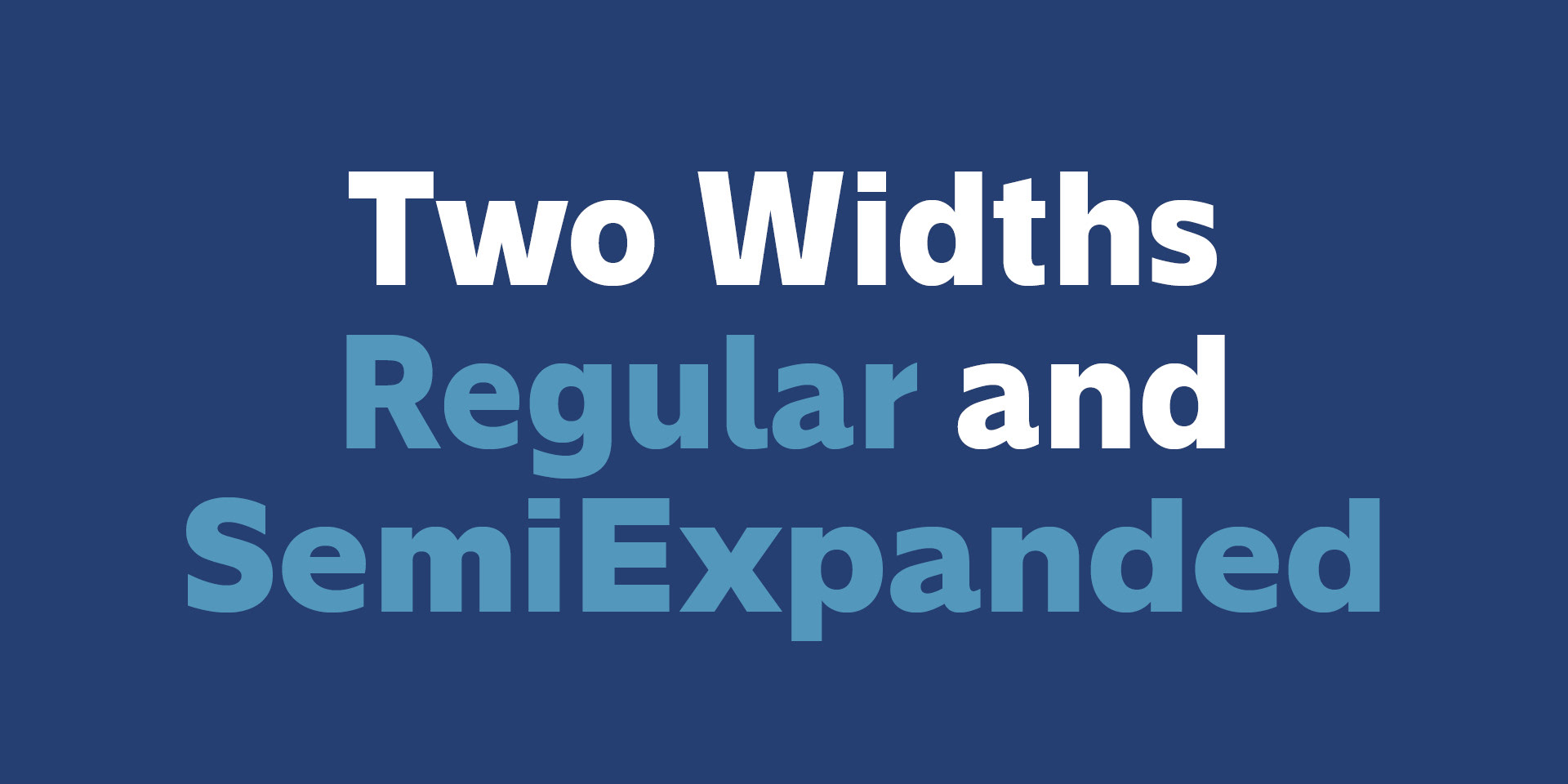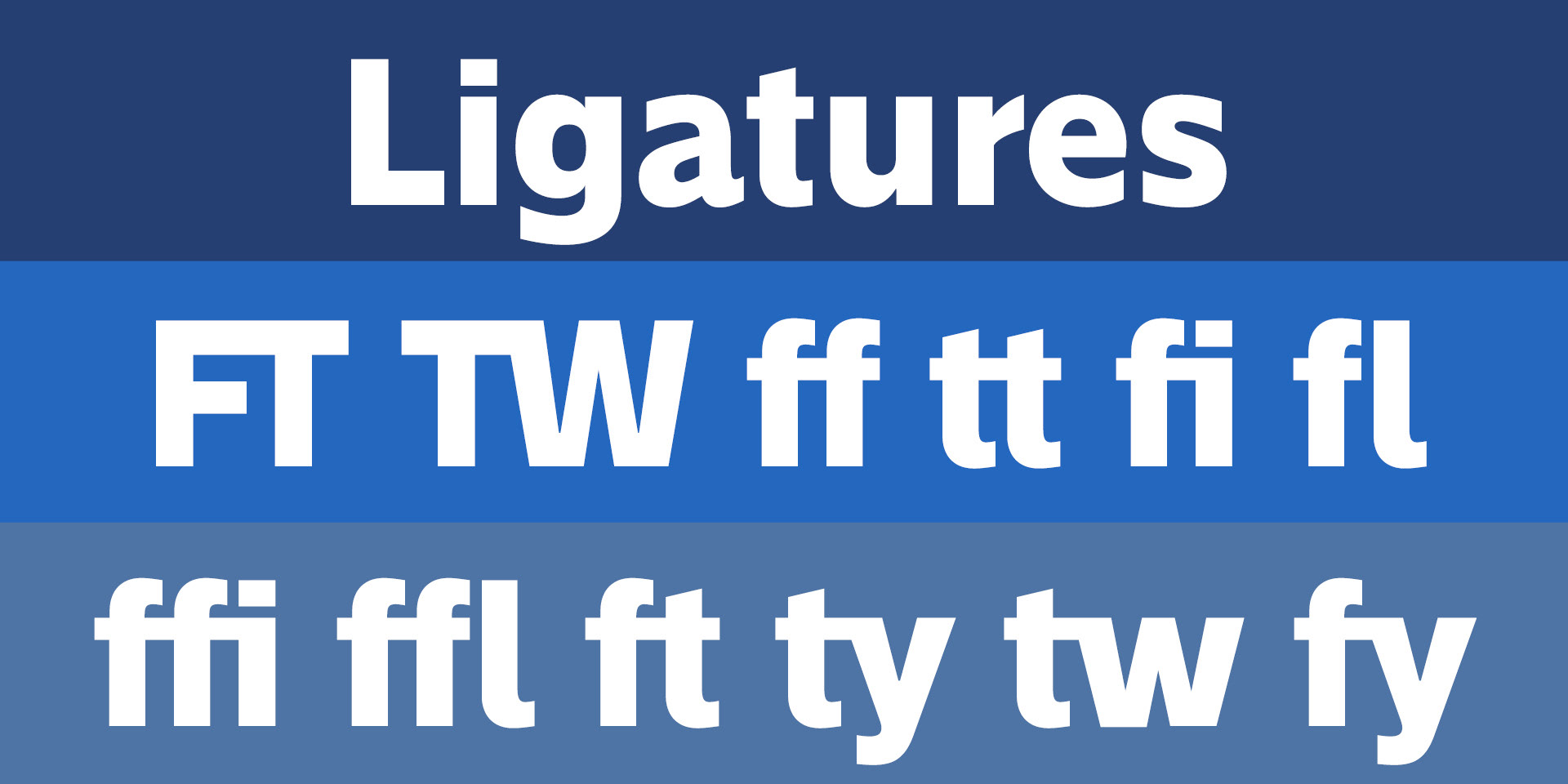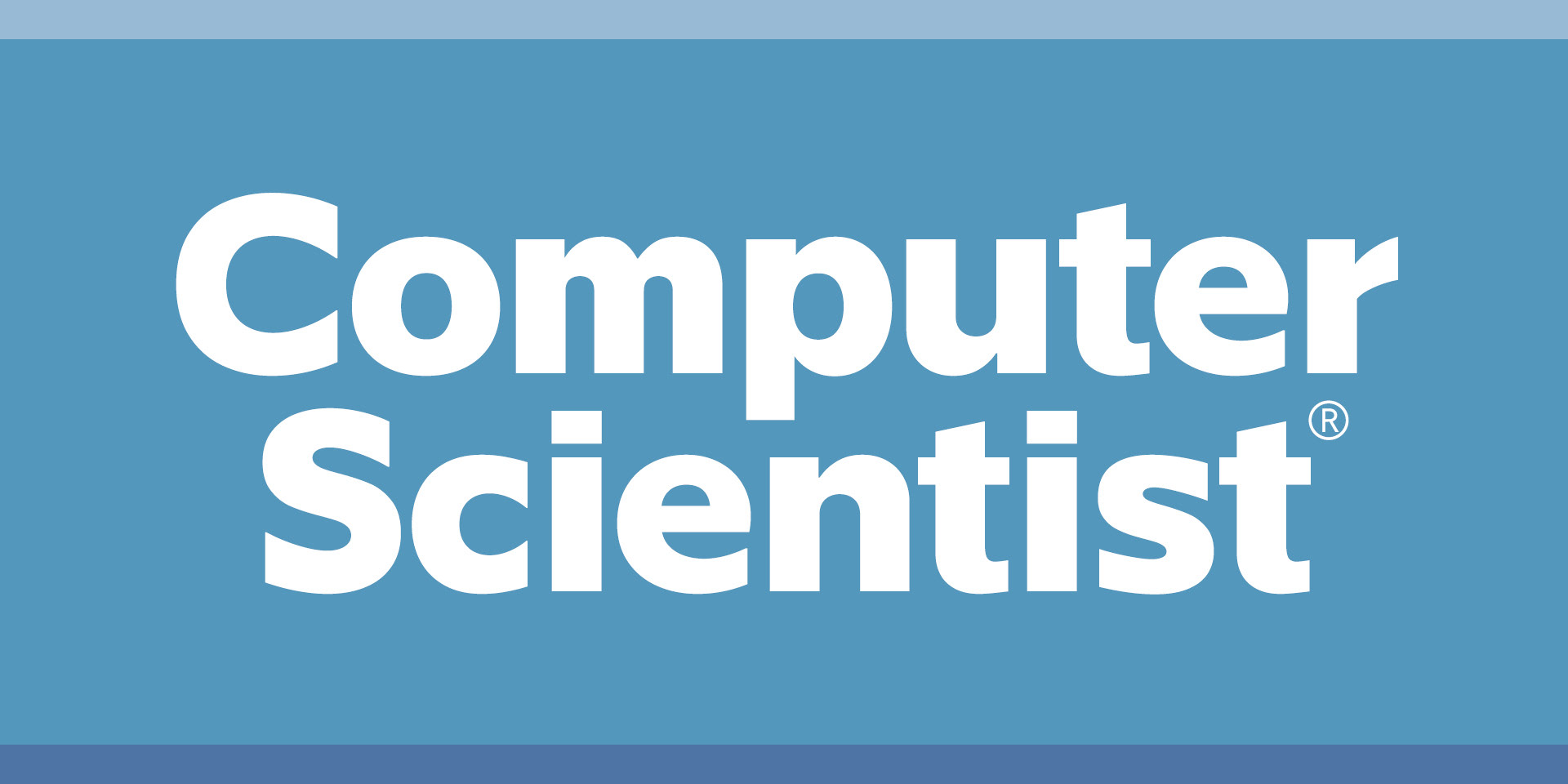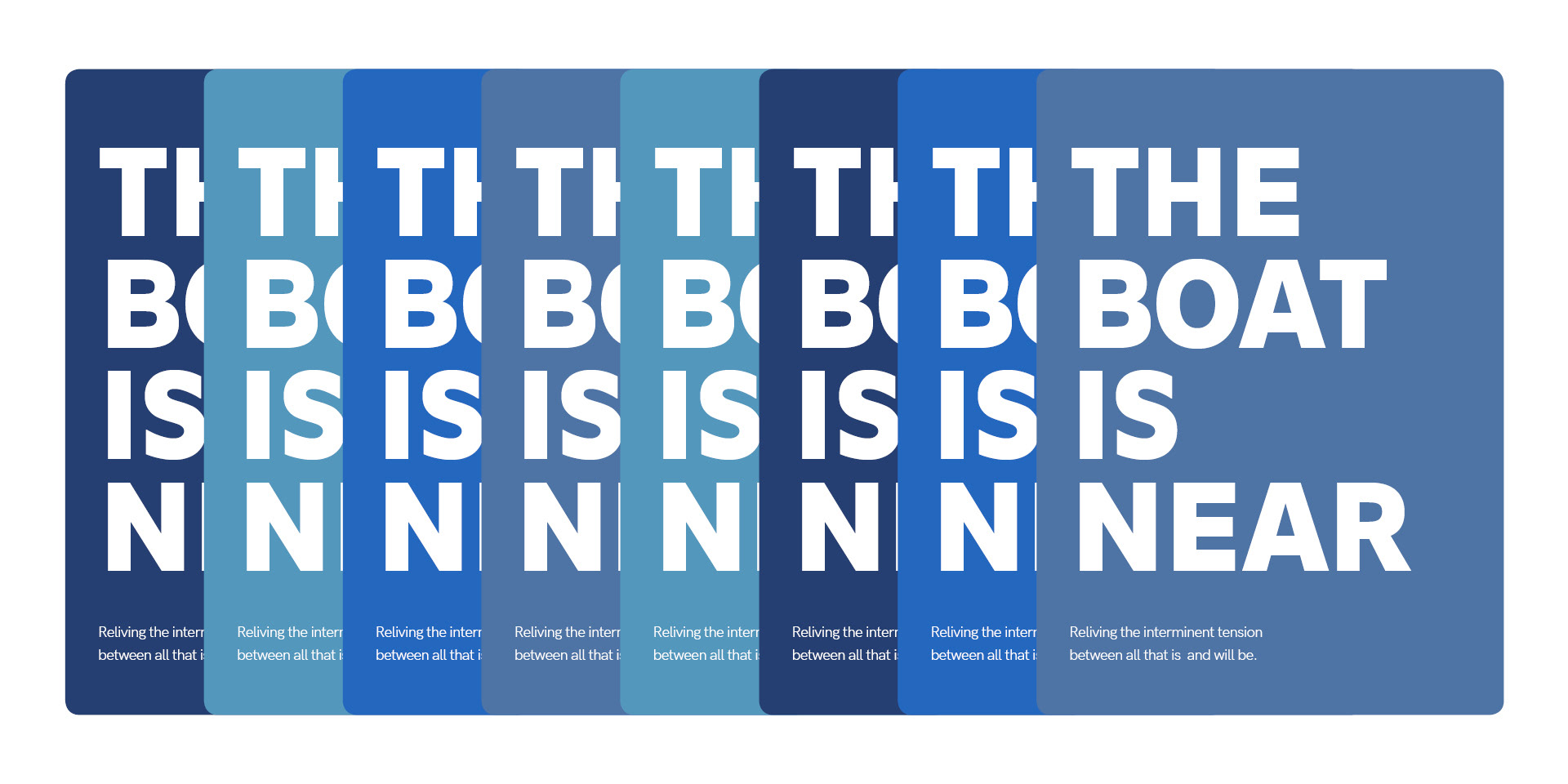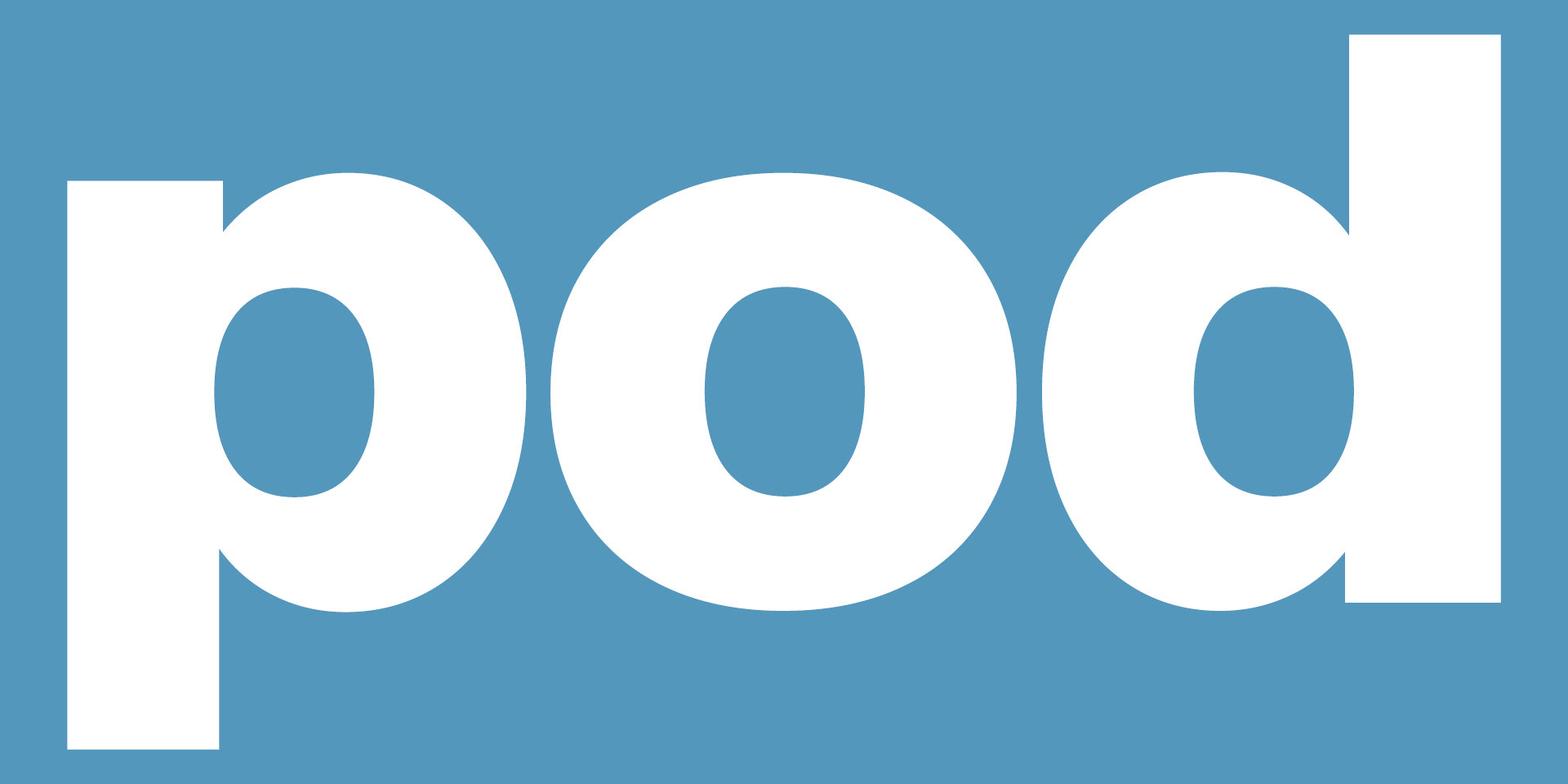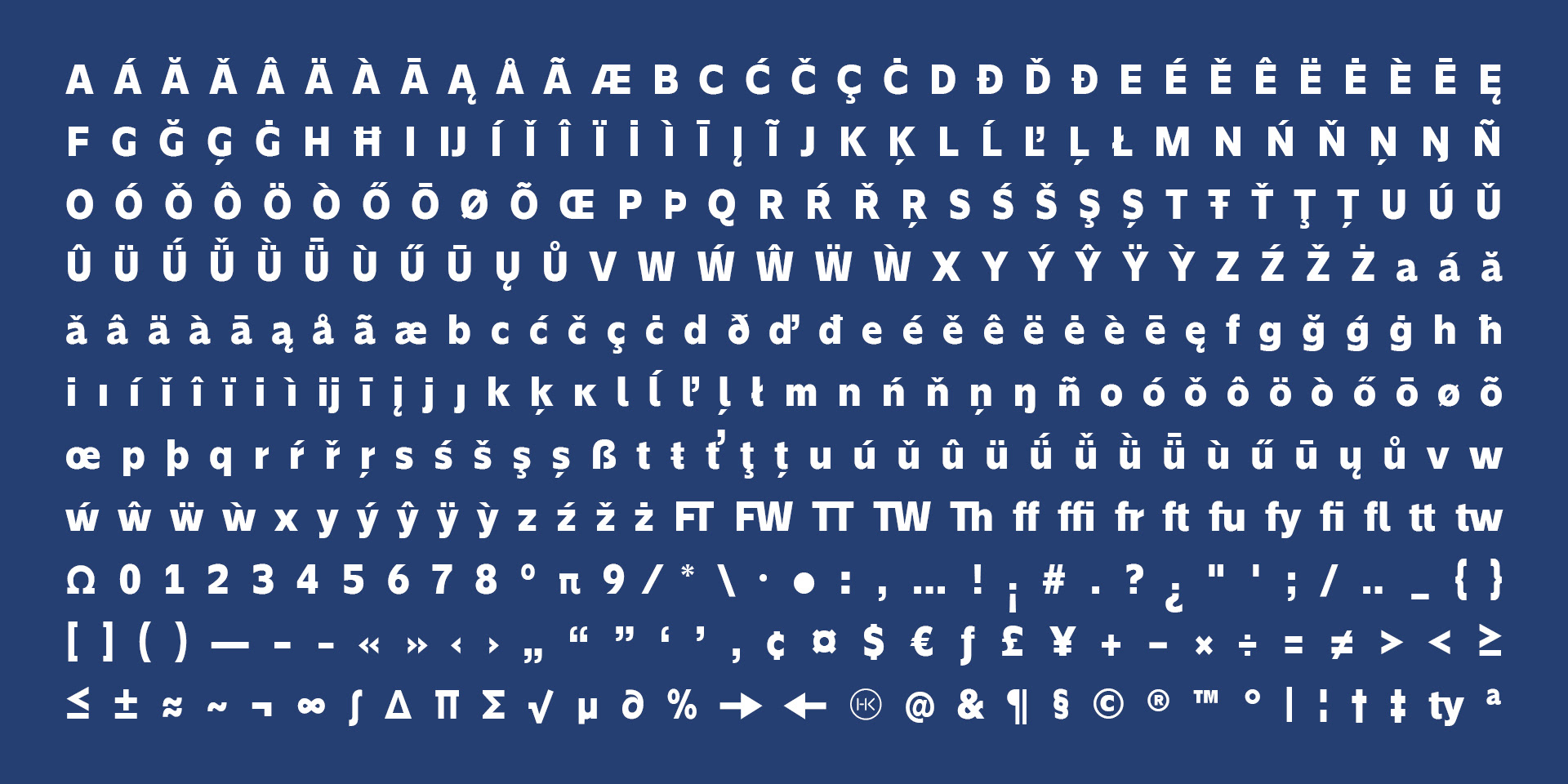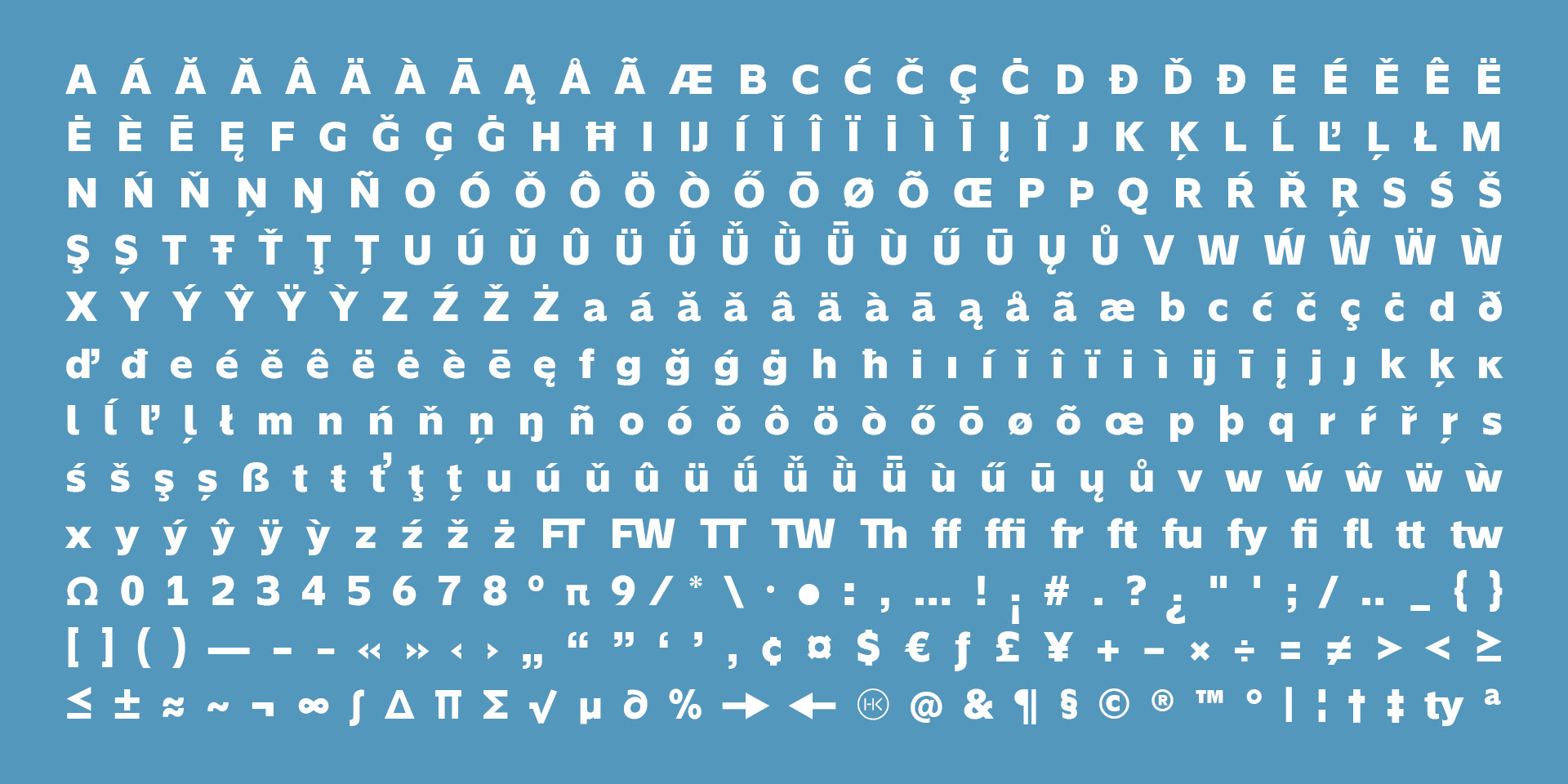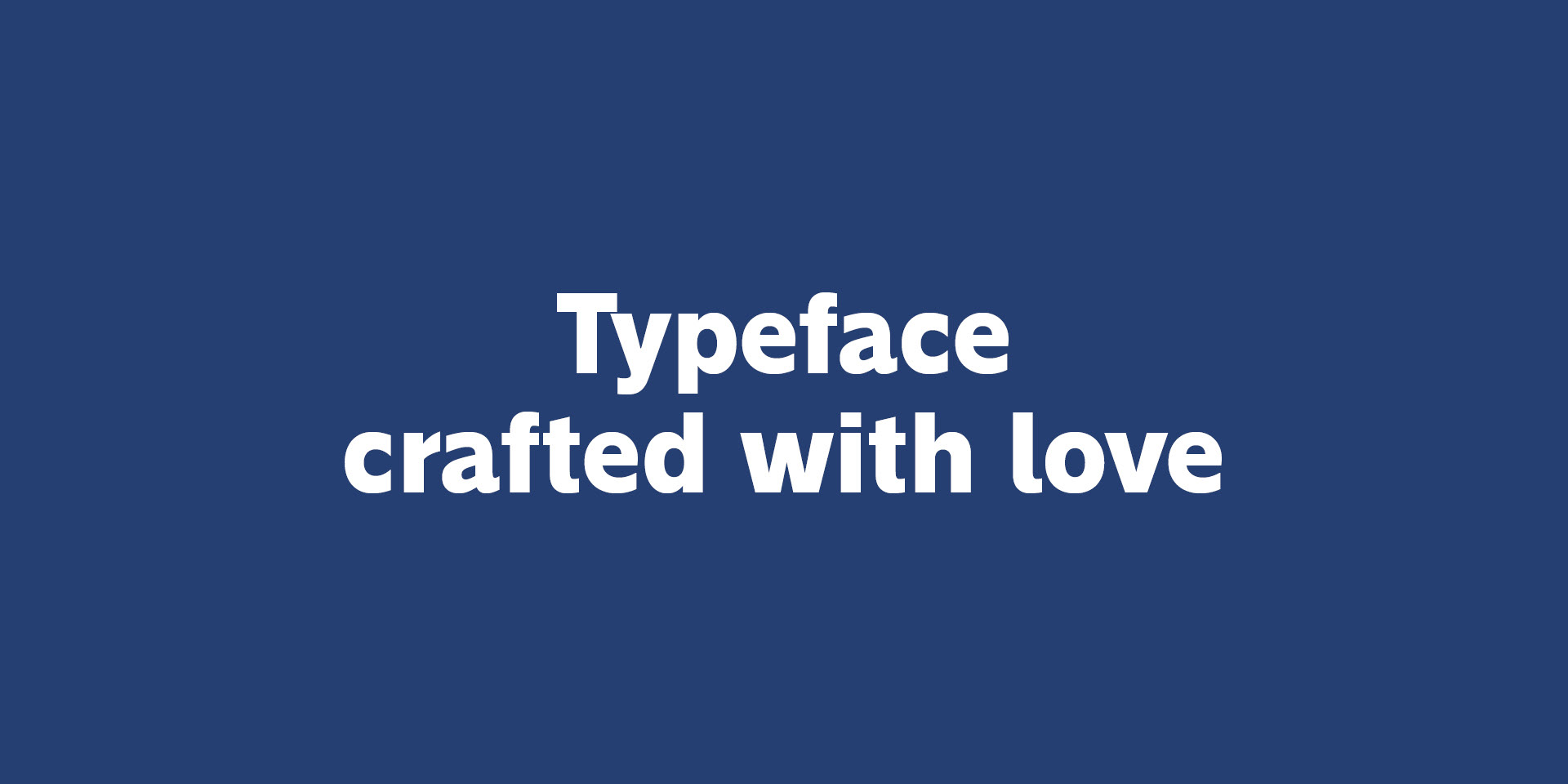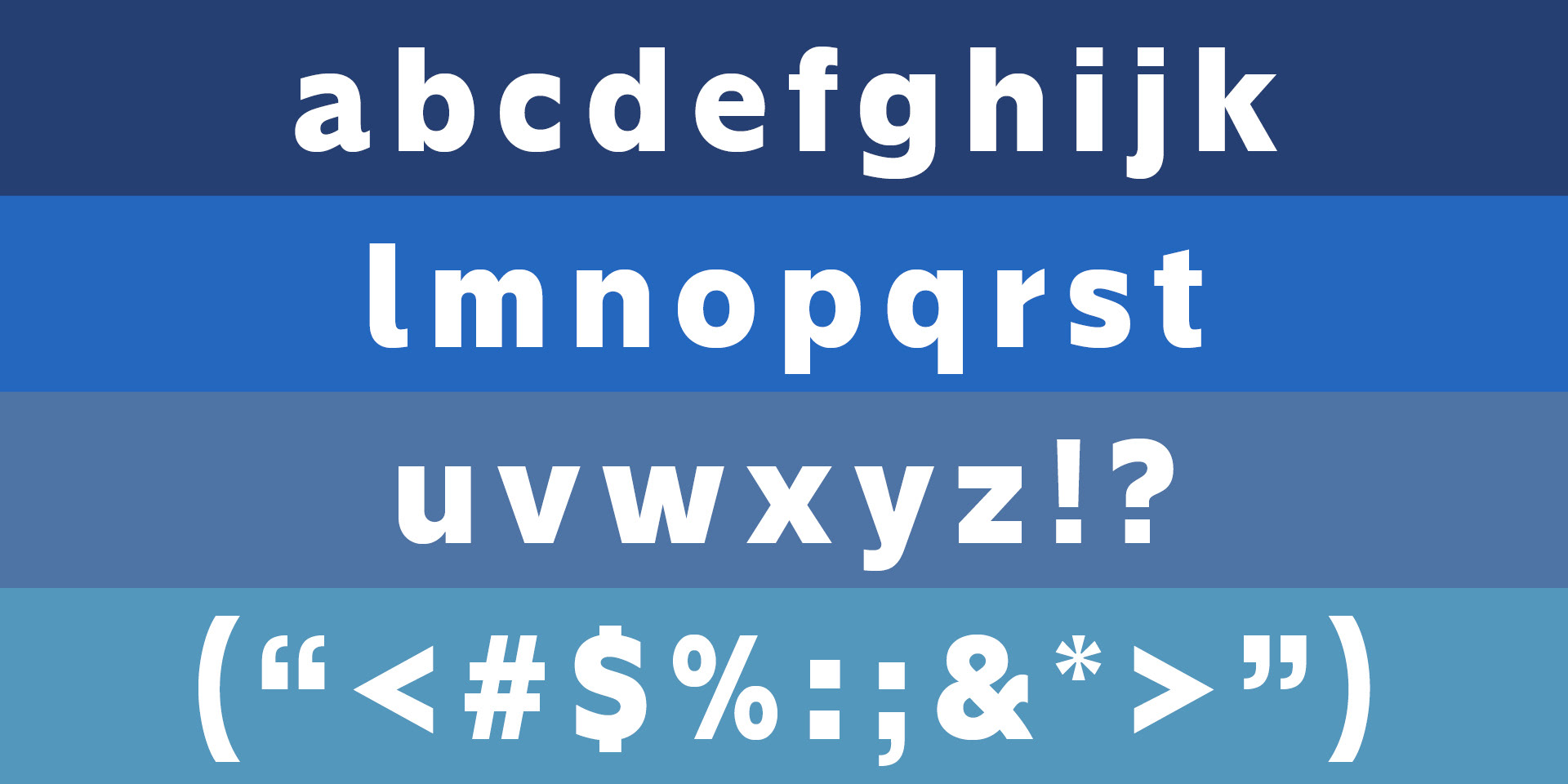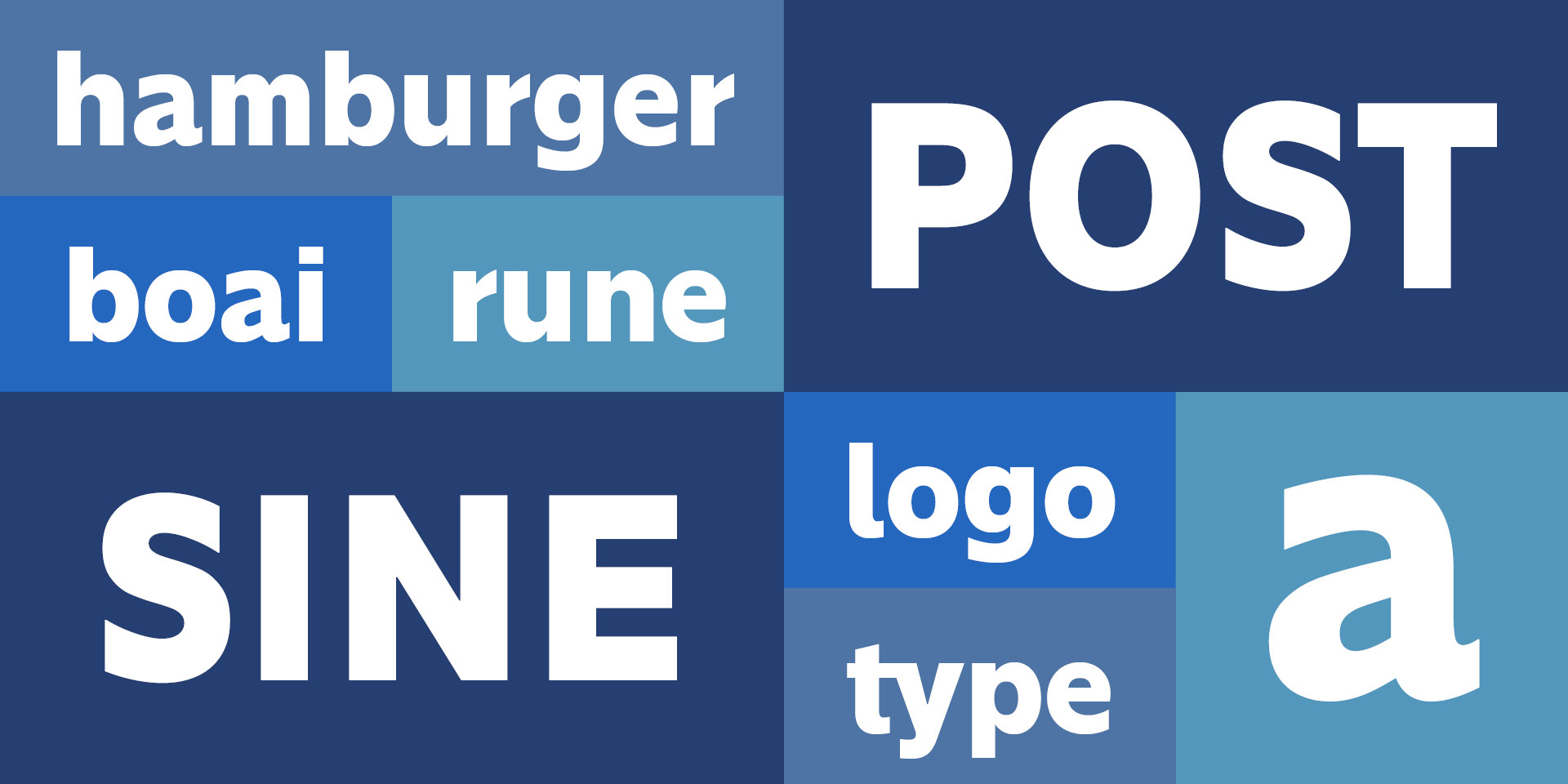
Illuma Free Typeface
Illuma is a high impact typeface for display purposes, headlines, posters, signage and logotypes
Illuma is a high impact typeface for display purposes, headlines, posters, signage and logotypes.